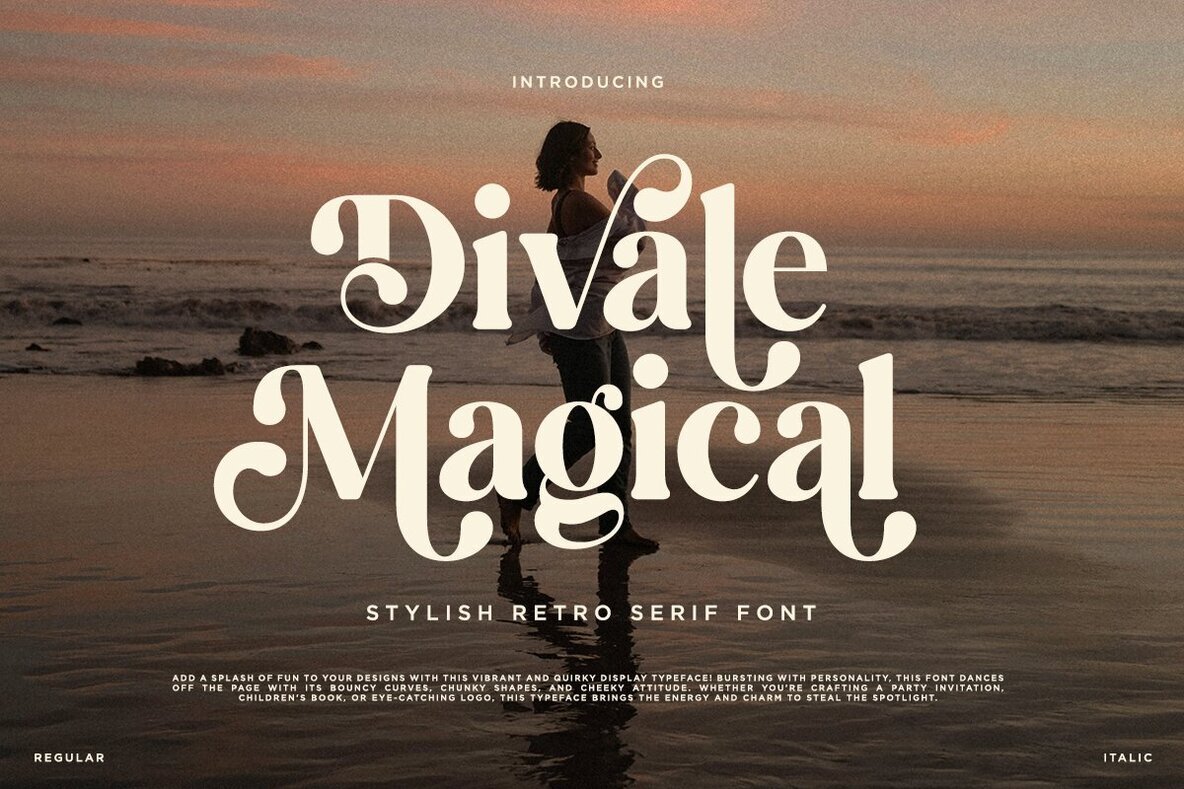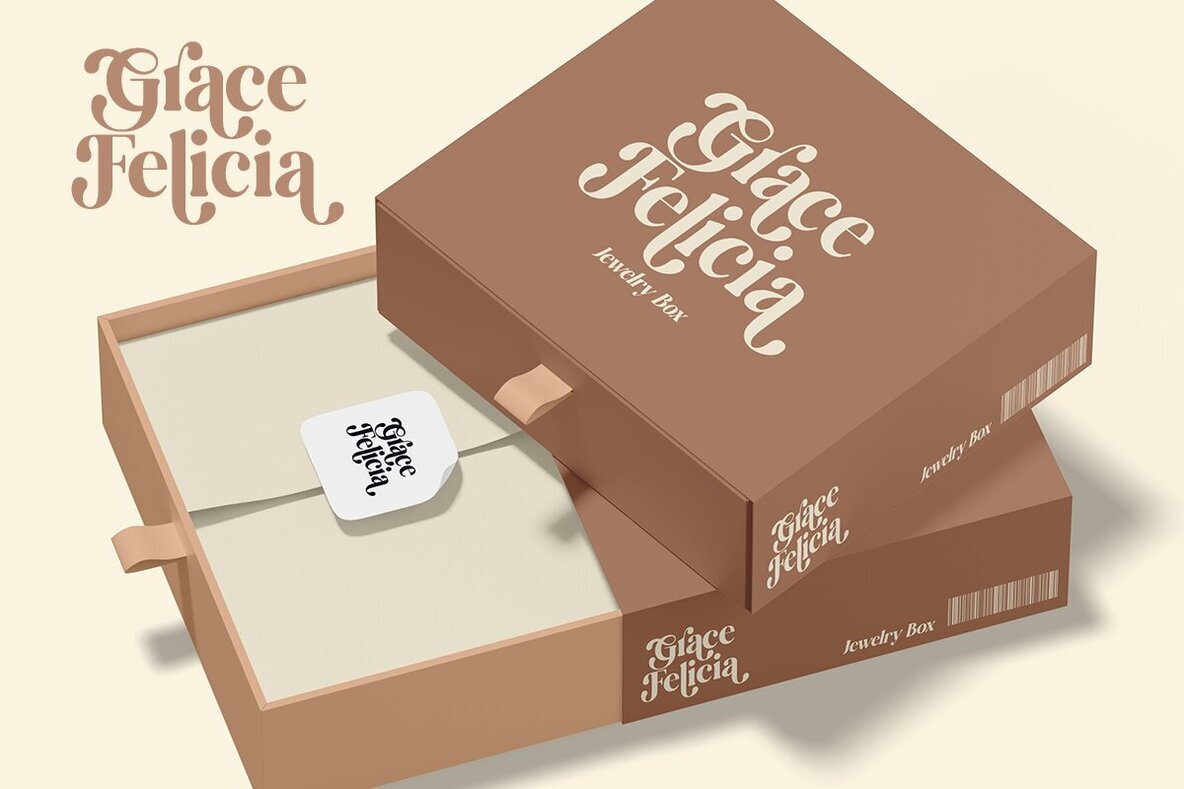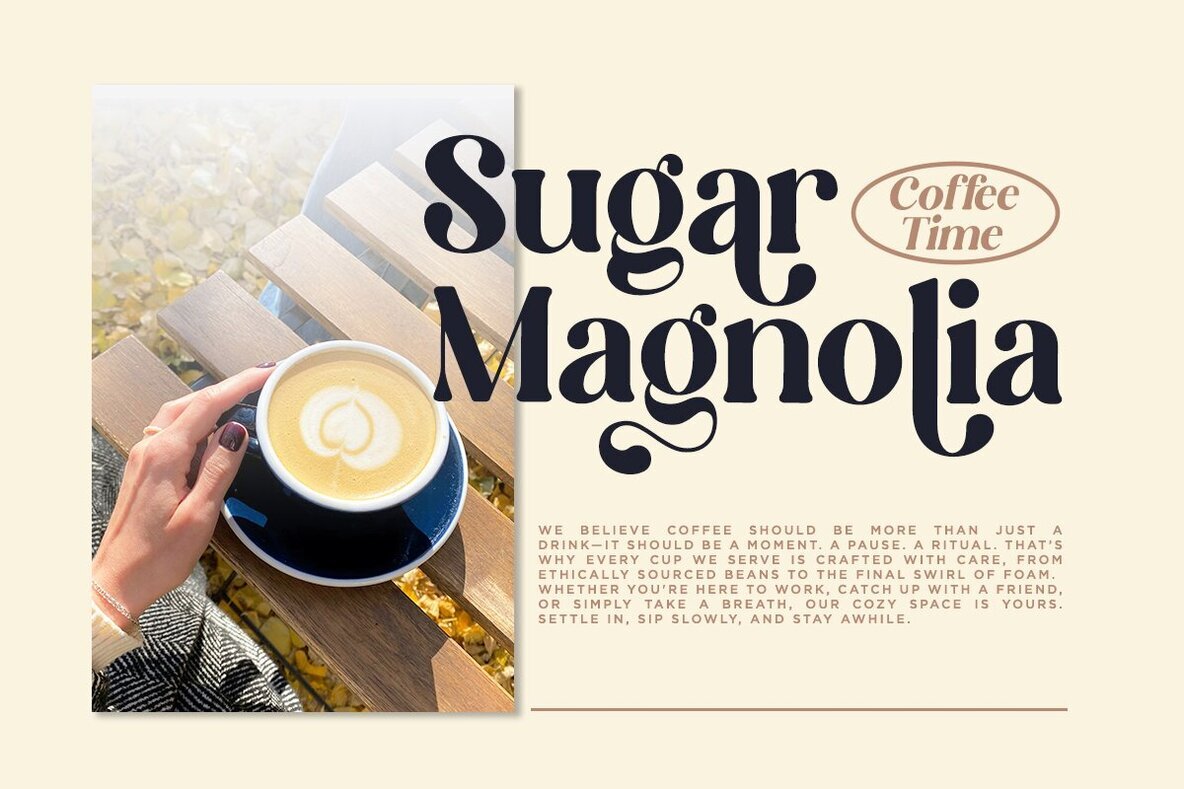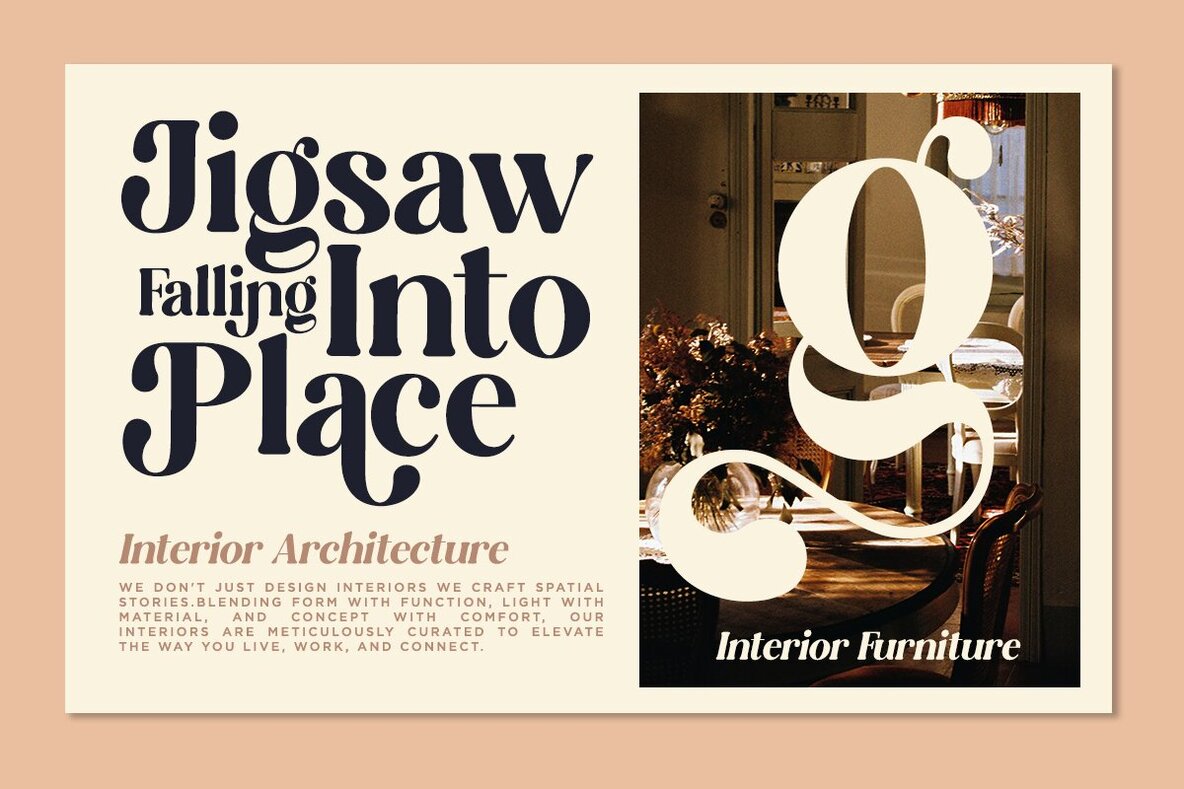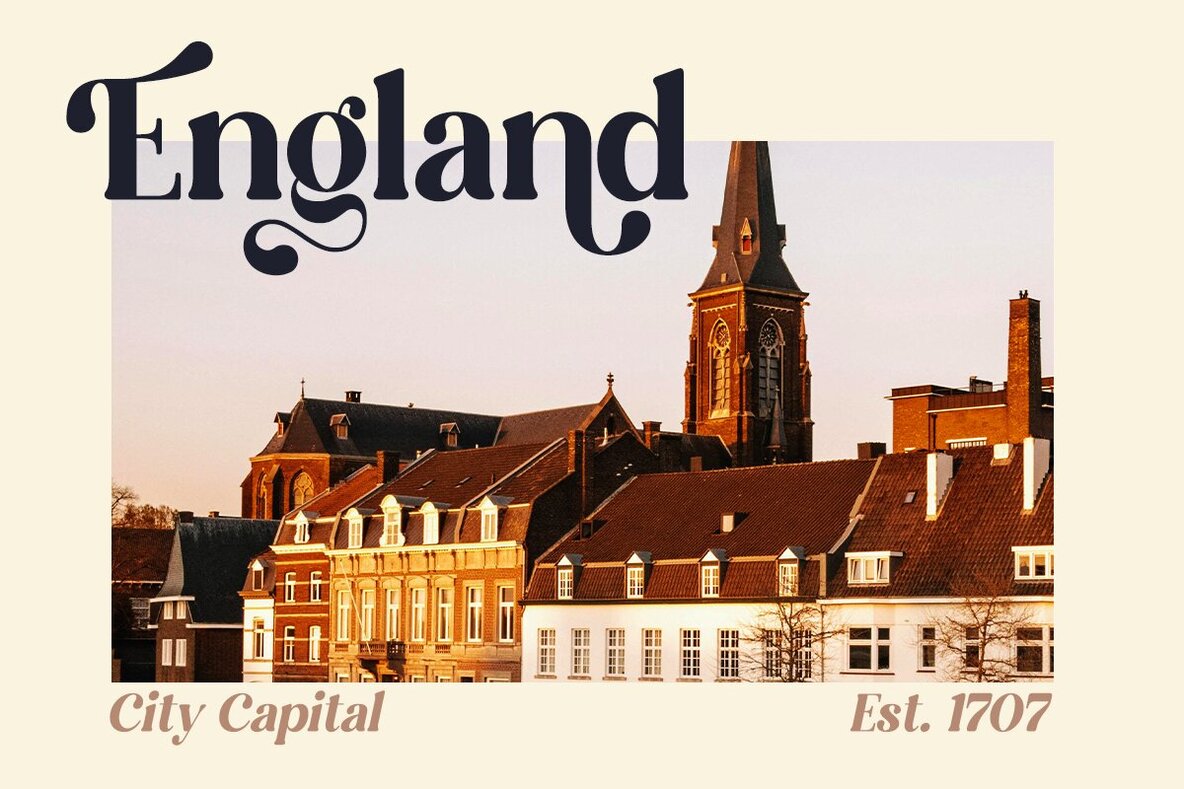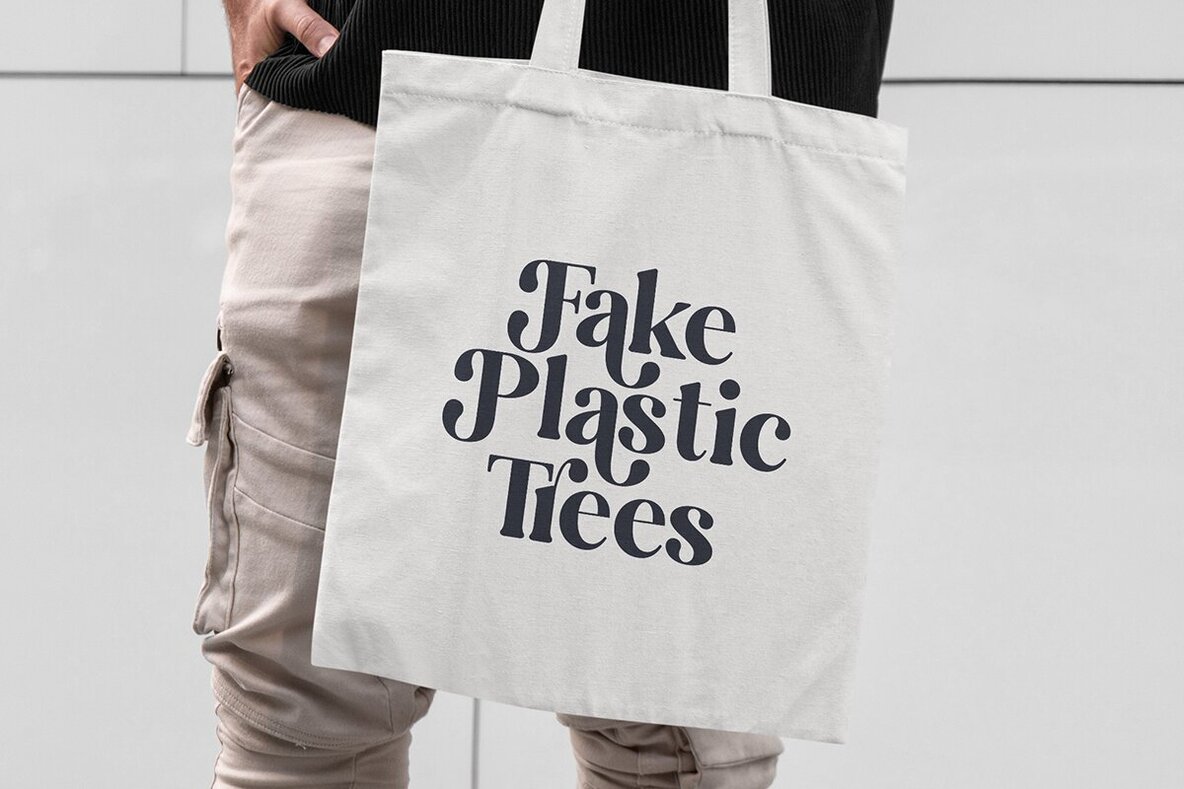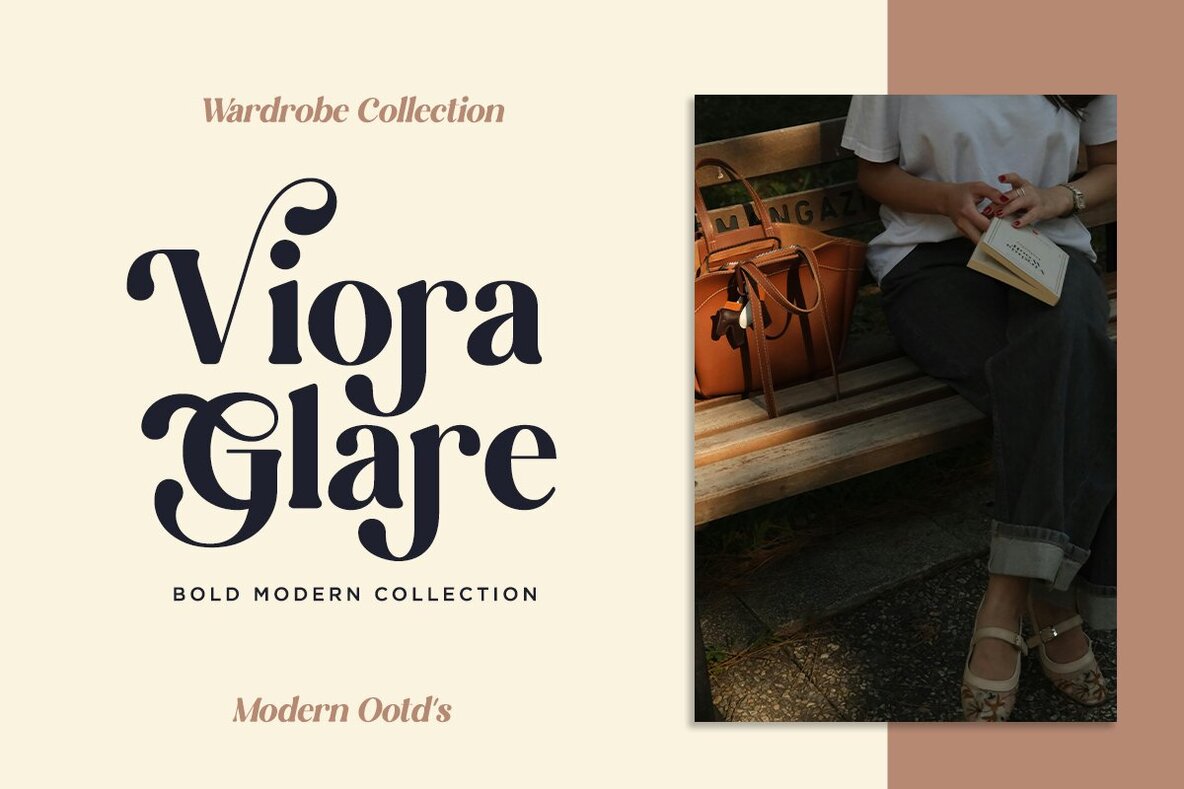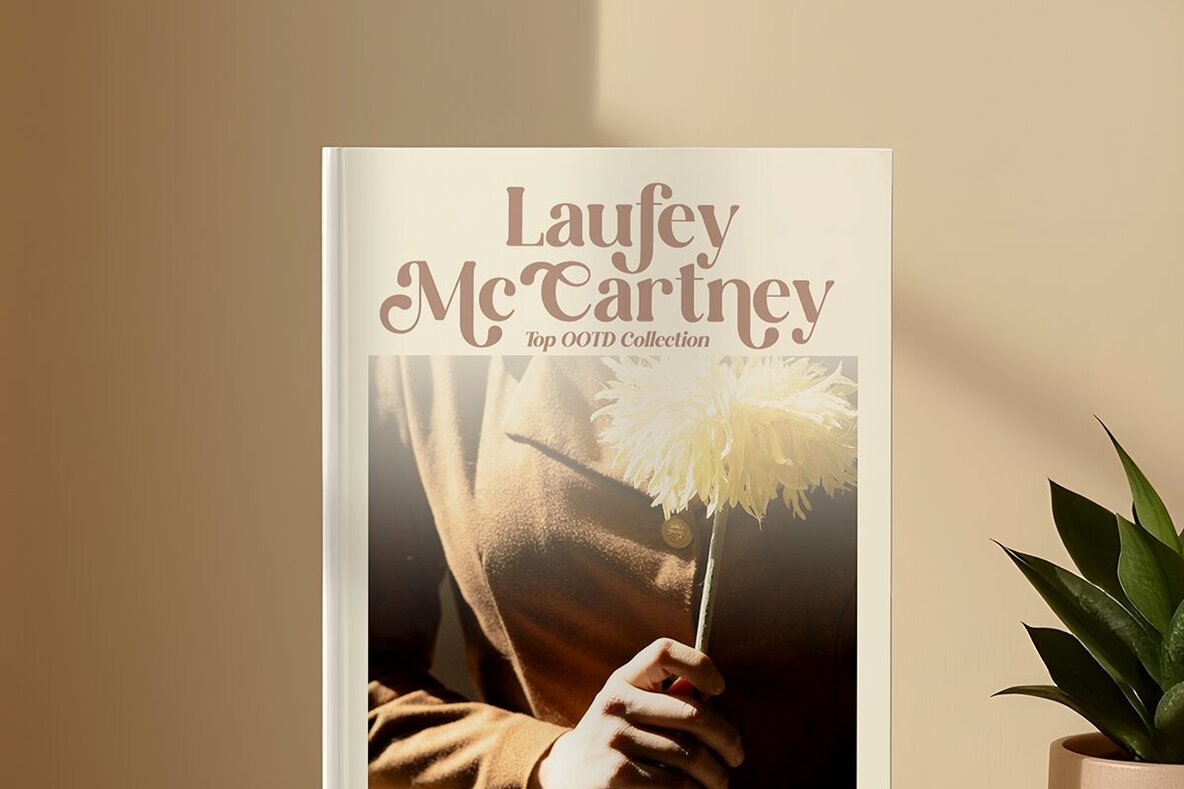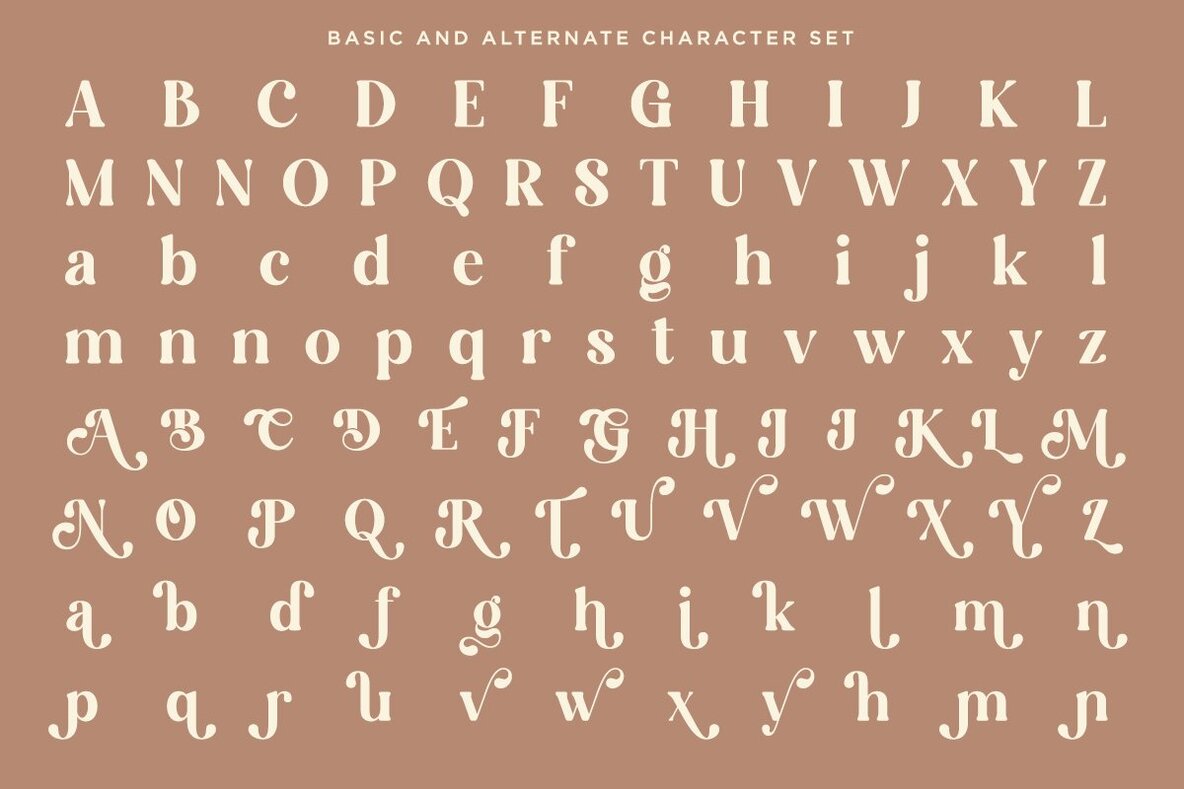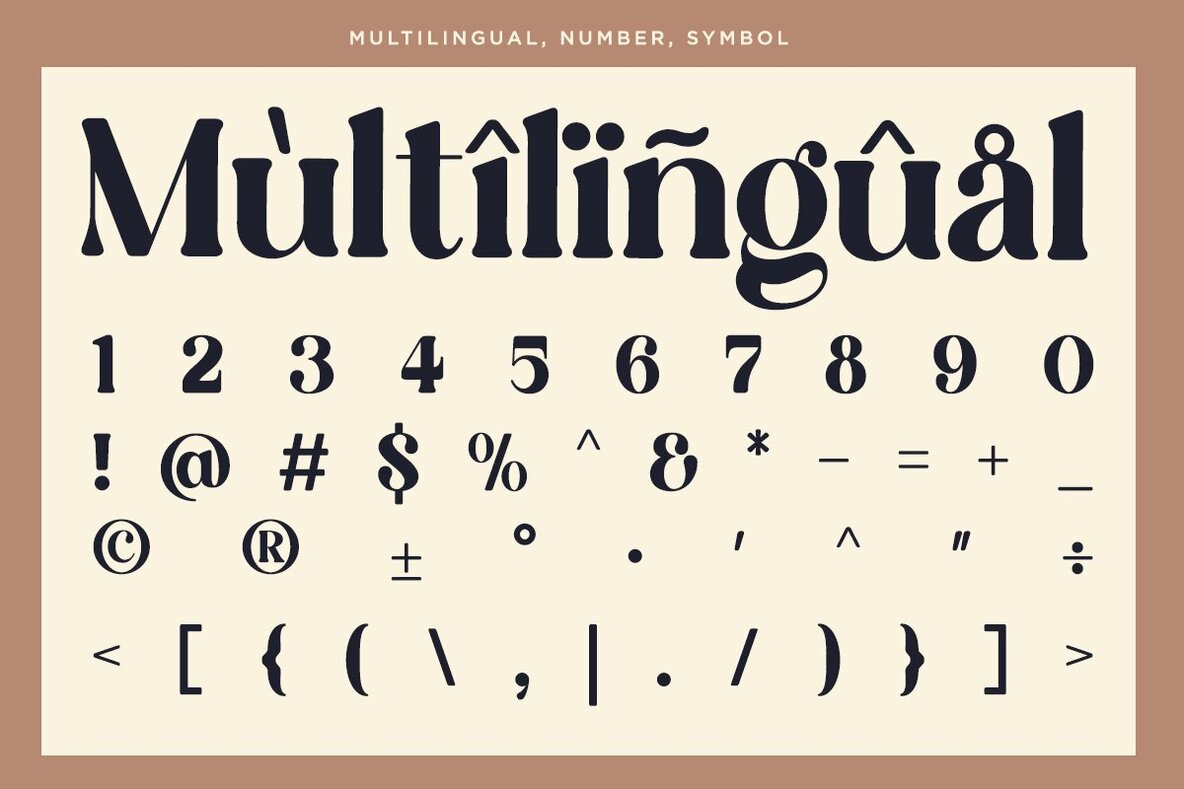
Divale Magical Font
Divale Magical is a bold and whimsical display typeface designed for designs that need personality and charm. Its soft curves, distinctive terminals, and engaging letterforms create a visual experience that mixes retro inspiration with modern appeal. Whether used for branding a cozy coffee shop, designing an eye-catching book cover, or enhancing packaging and social media, this font introduces warmth and playful energy to any project. This typeface stands out with its creative flair, making every design both memorable and approachable.Divale Magical Bold Display Typeface